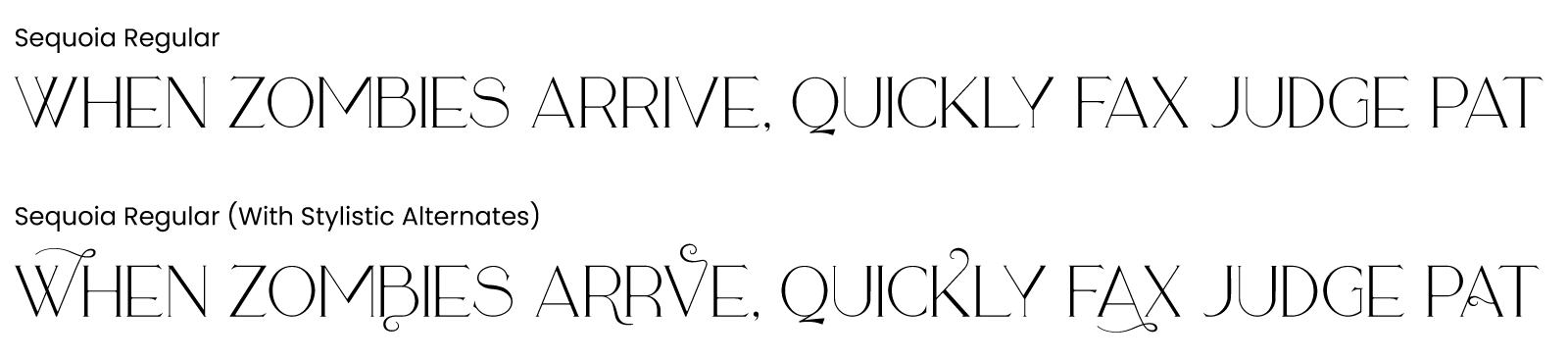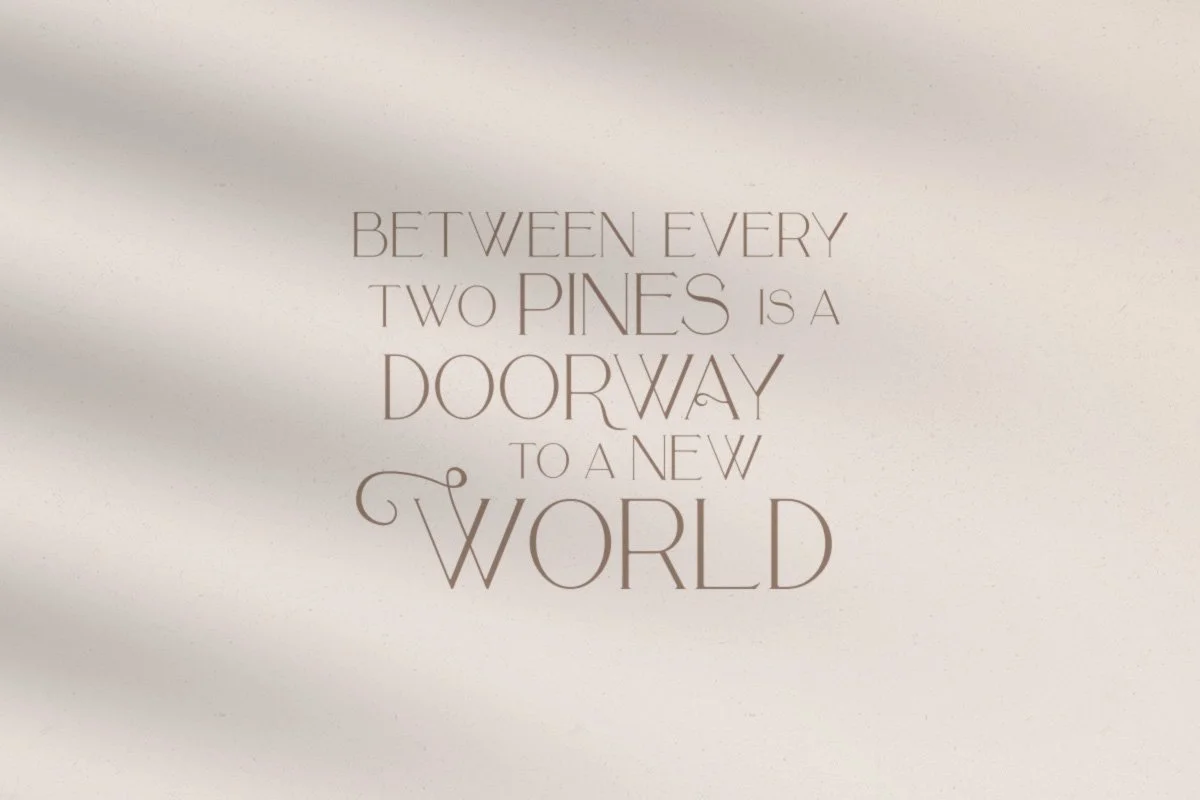
Sequoia is a classy serif font with uppercase letters, reversed letters and stylistic alternates. You'll need a software supporting alternate characters or access to a glyphs panel to use them.